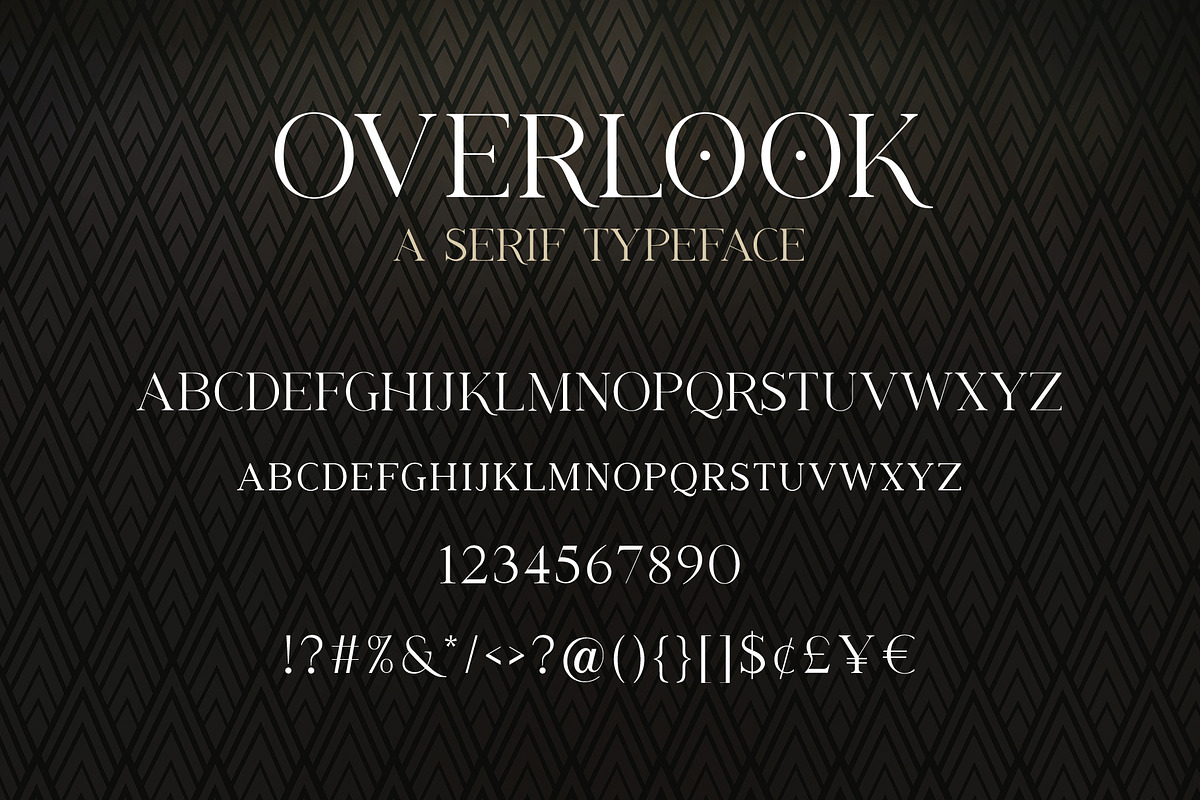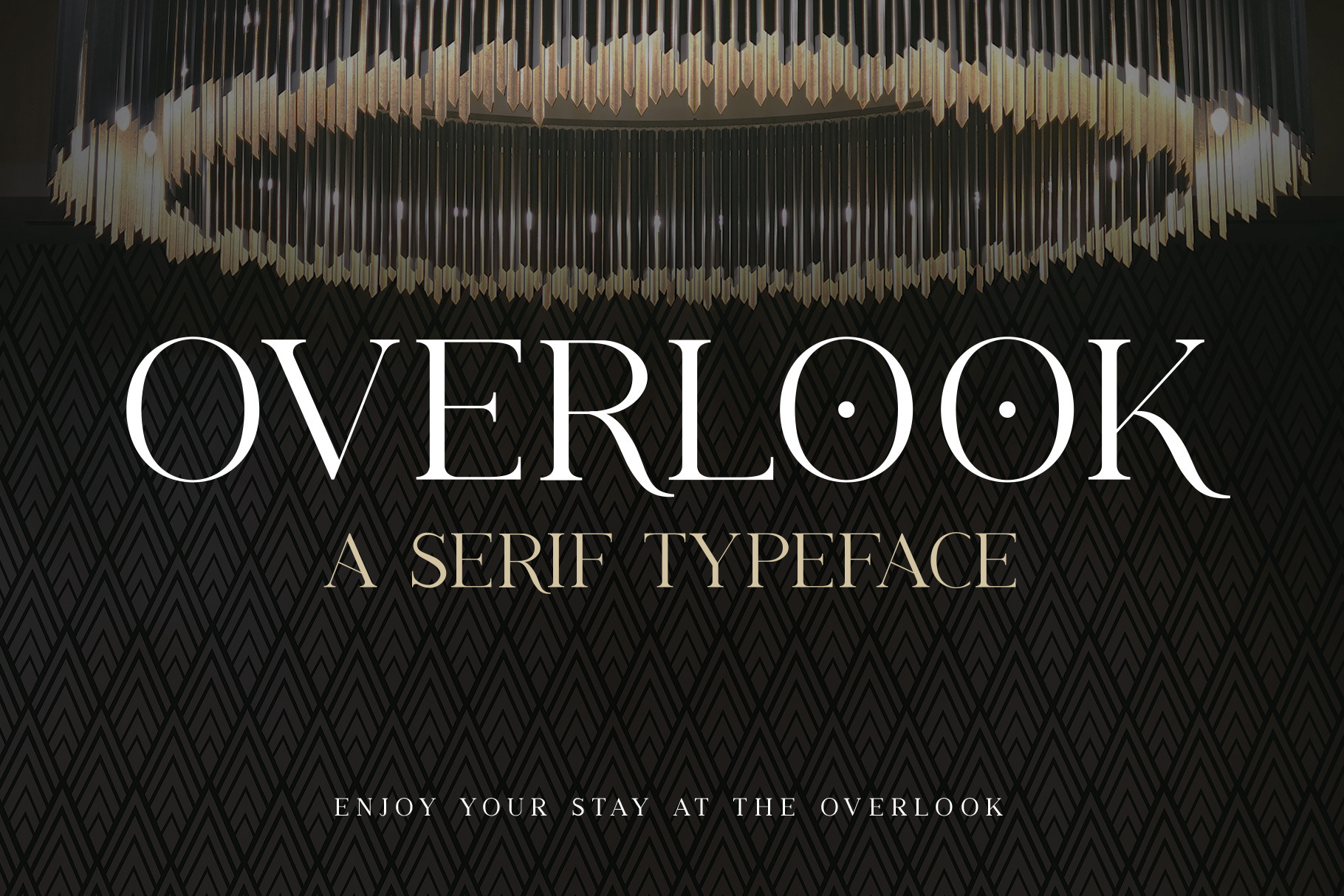
Overlook - A Serif Typeface
Overlook is a new stylish serif typeface with a modern touch, combining regular and thin stroke widths together. This font is perfect for headlines and display text, it also has good readability at smaller sizes.
Inspired by Stephen King's The Shining, this font was designed with an Art Deco hotel feel in mind, but with an ominous feeling that something isn't quite right.
Overlook includes:
- All uppercase letters
- Small caps
- All numbers 0-9
- Most common symbols and punctuation
- European characters and accents